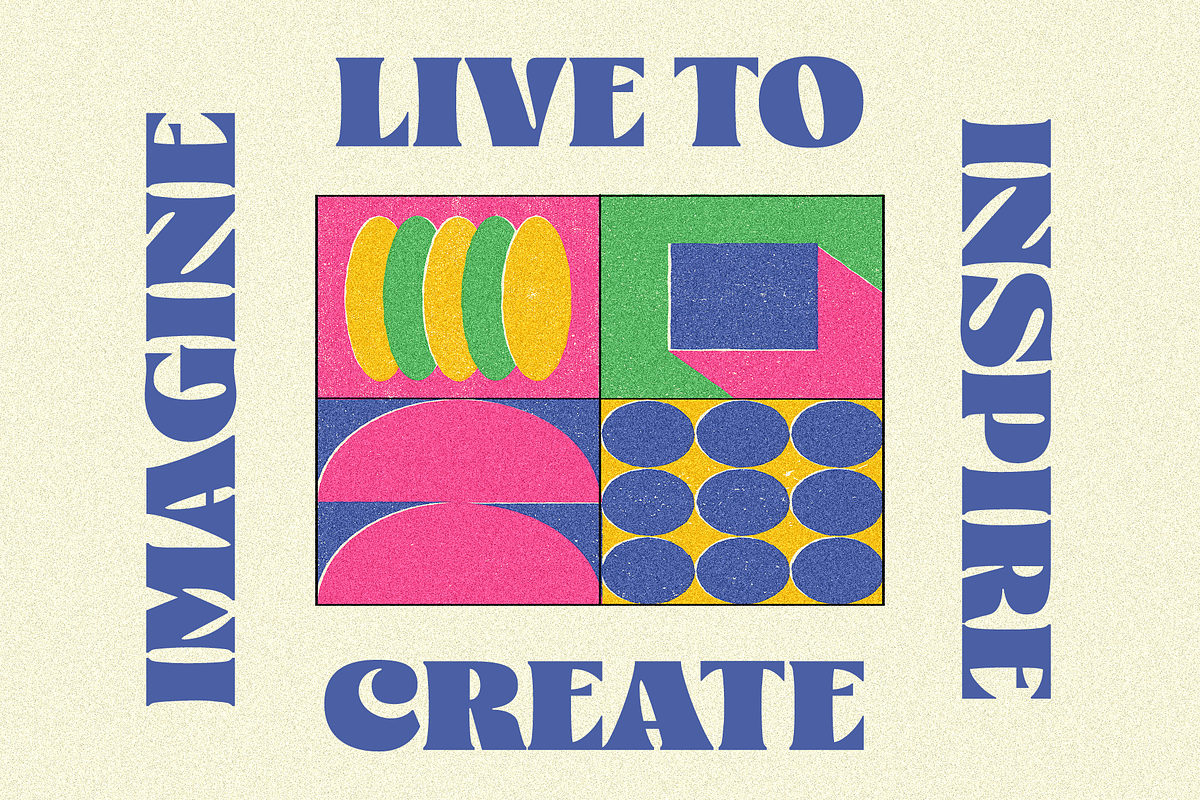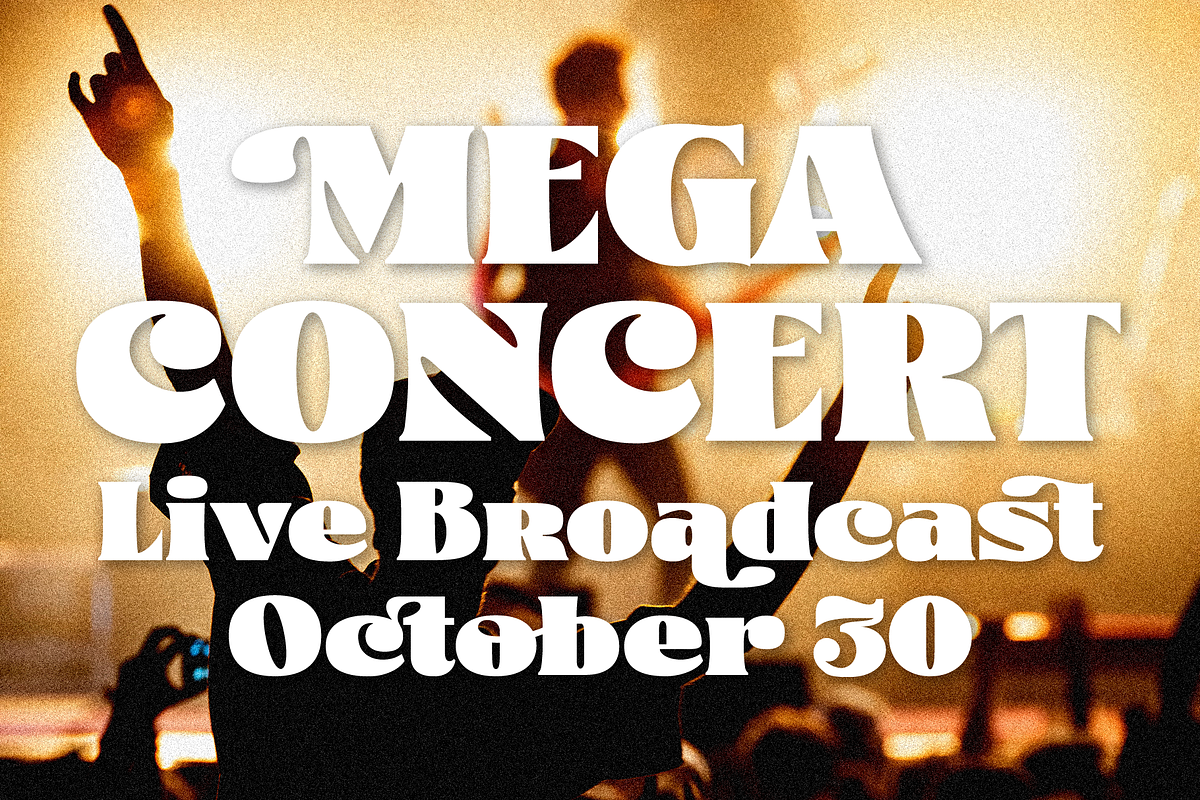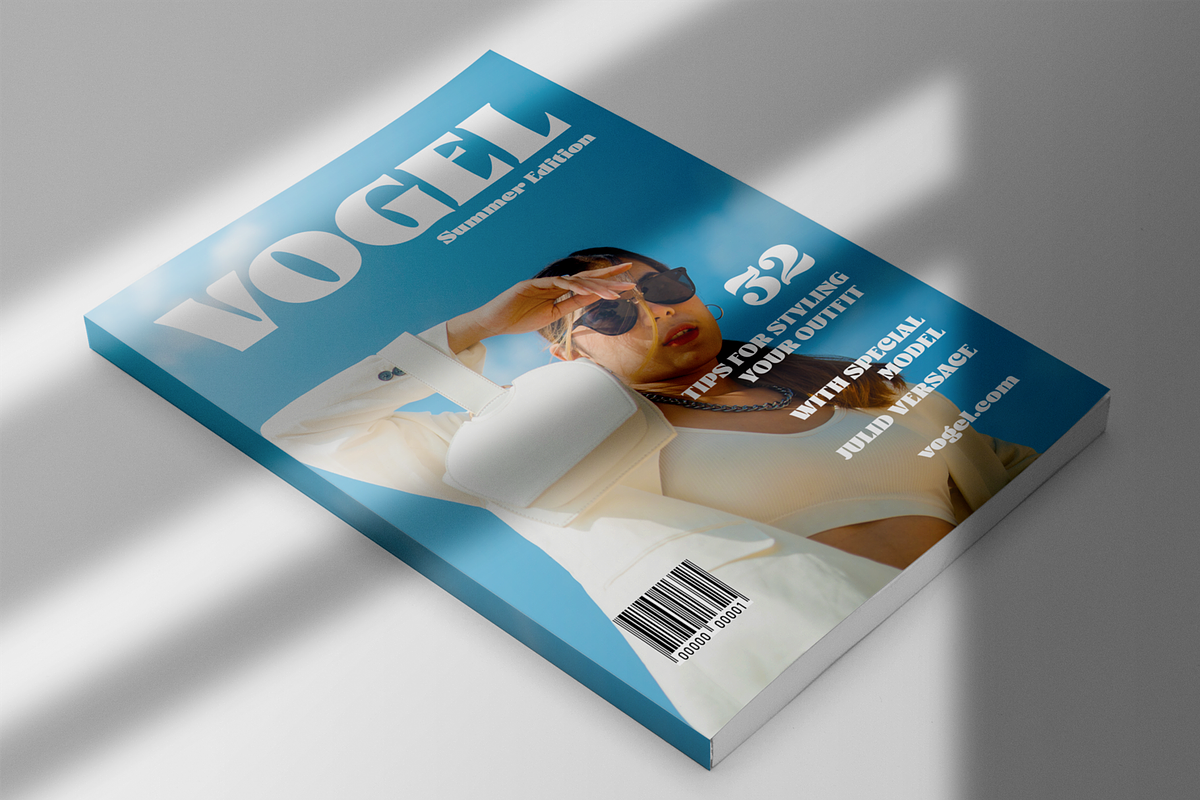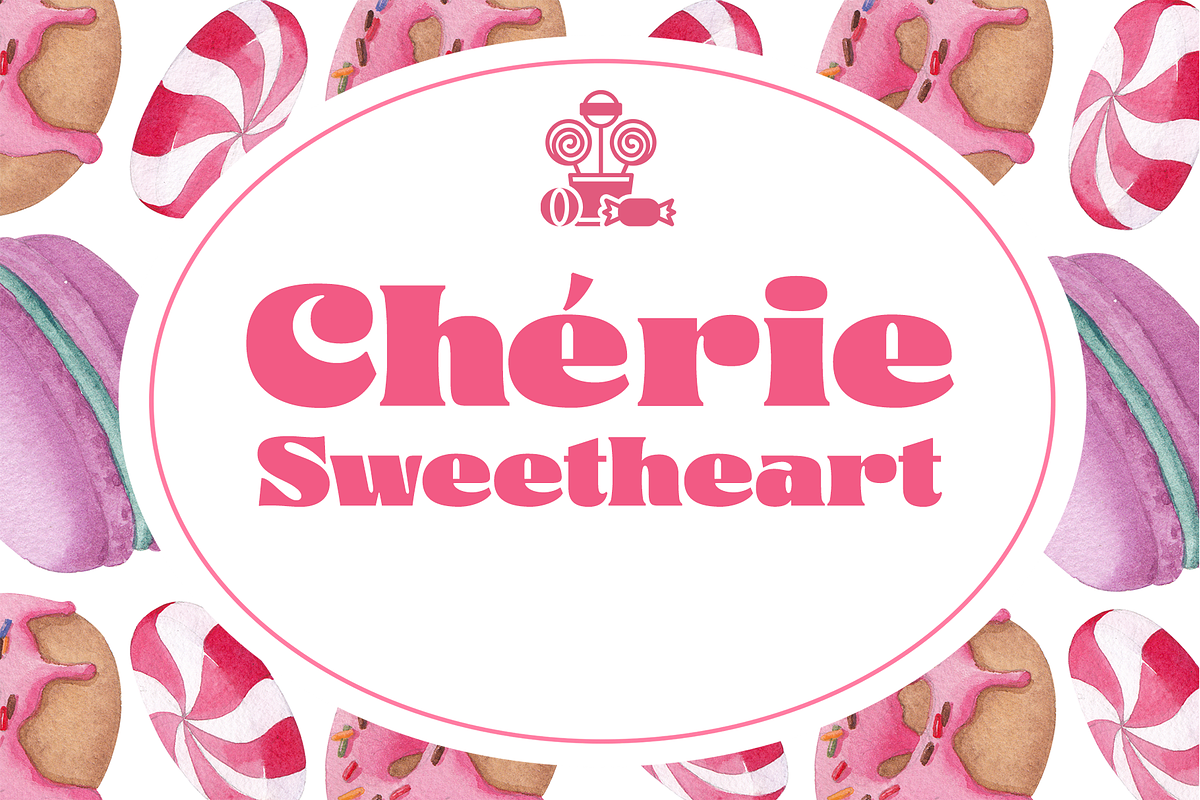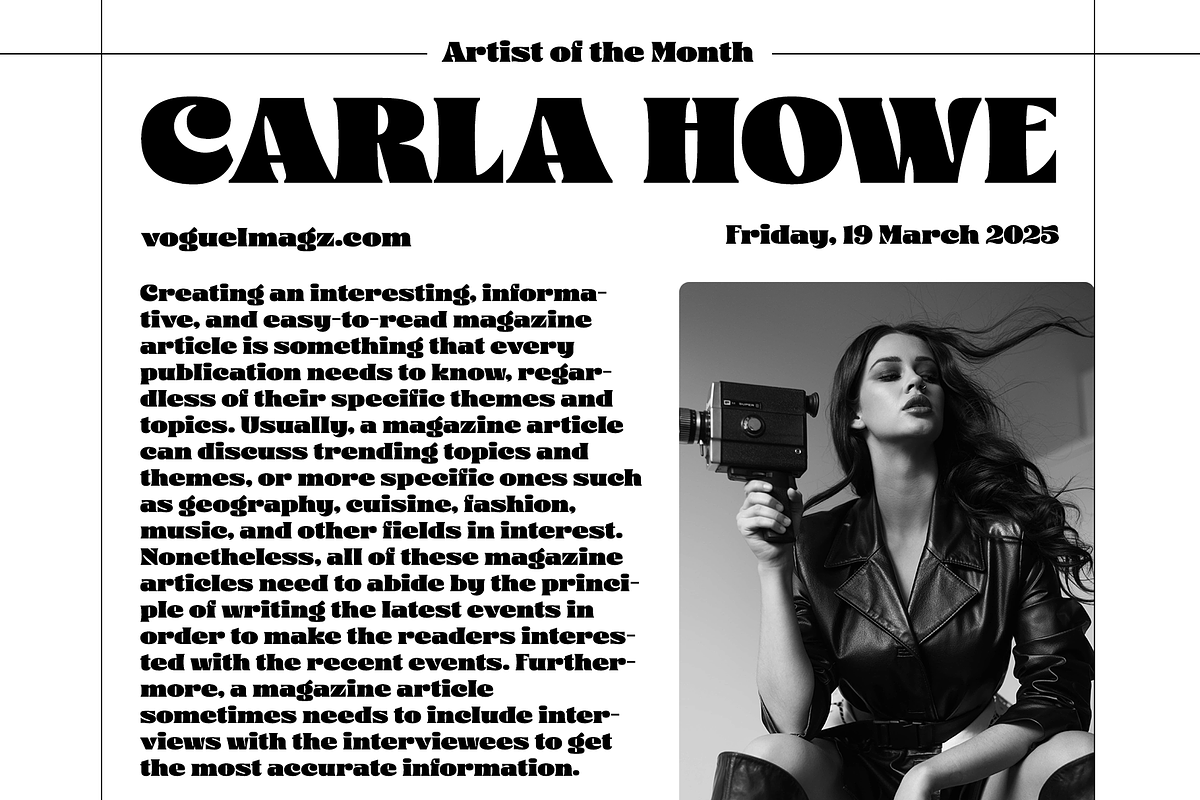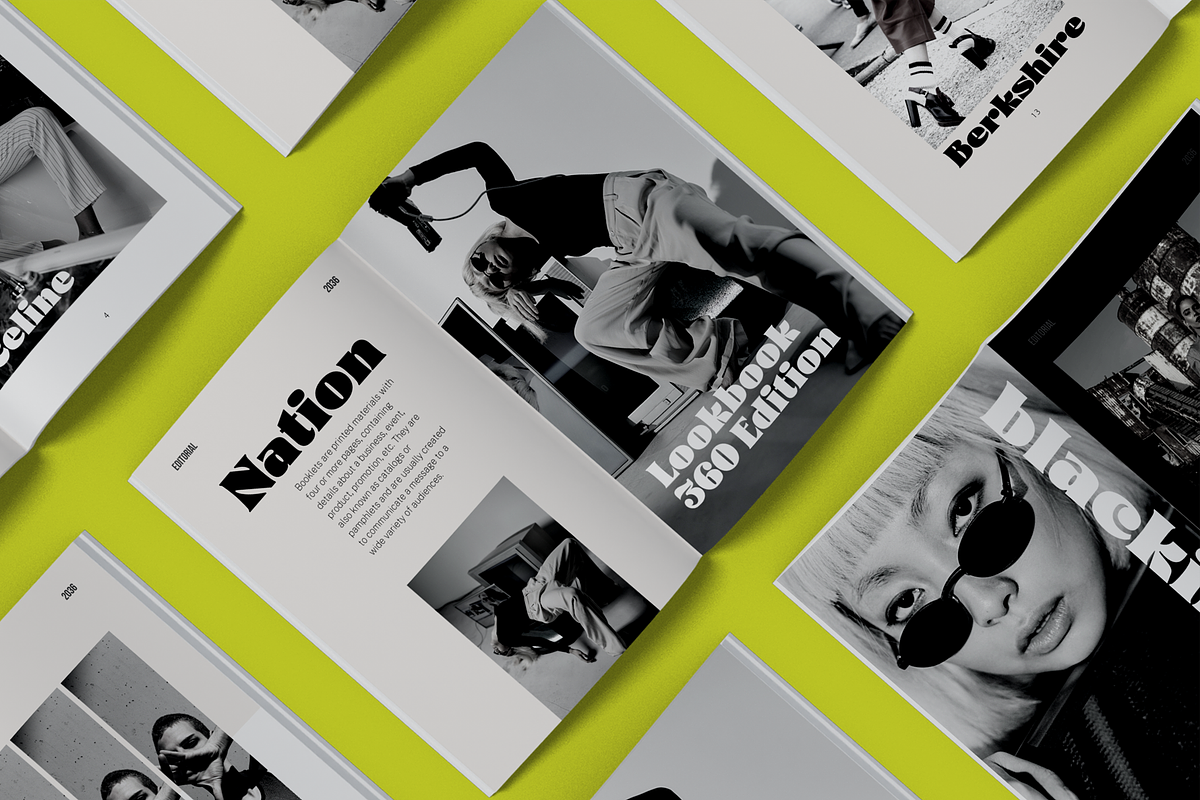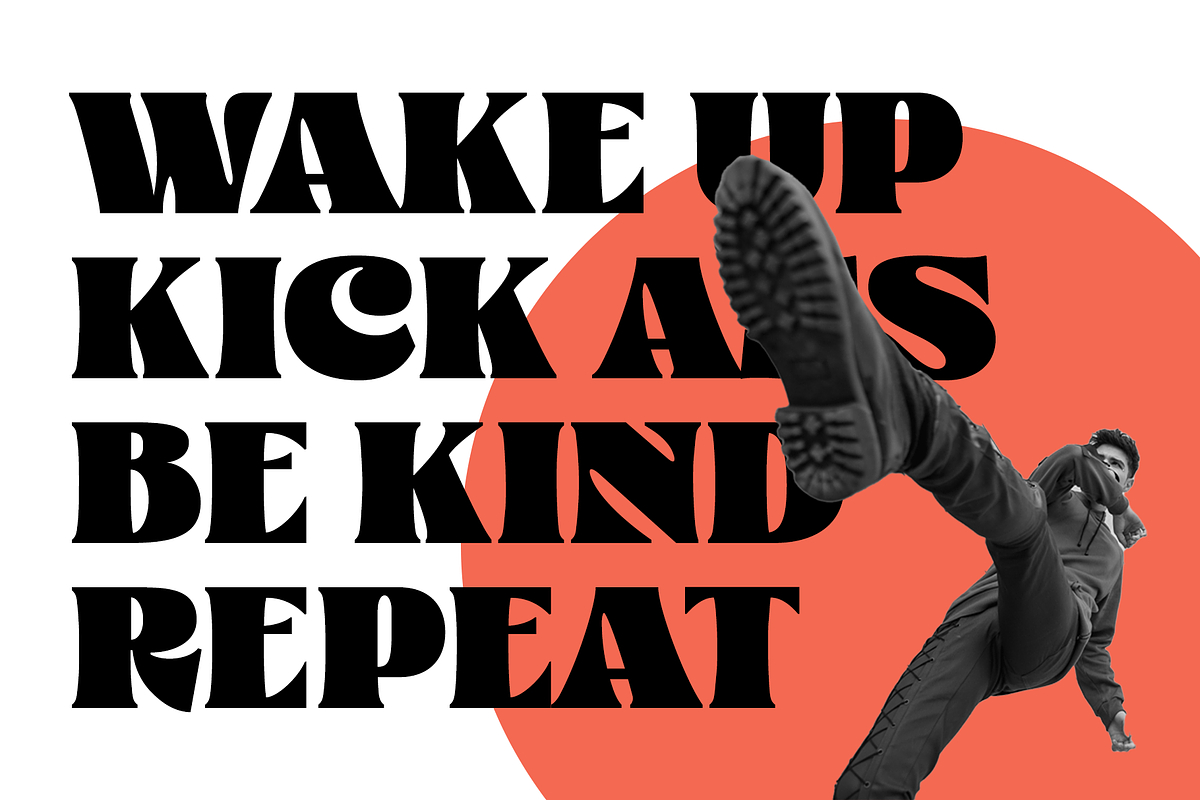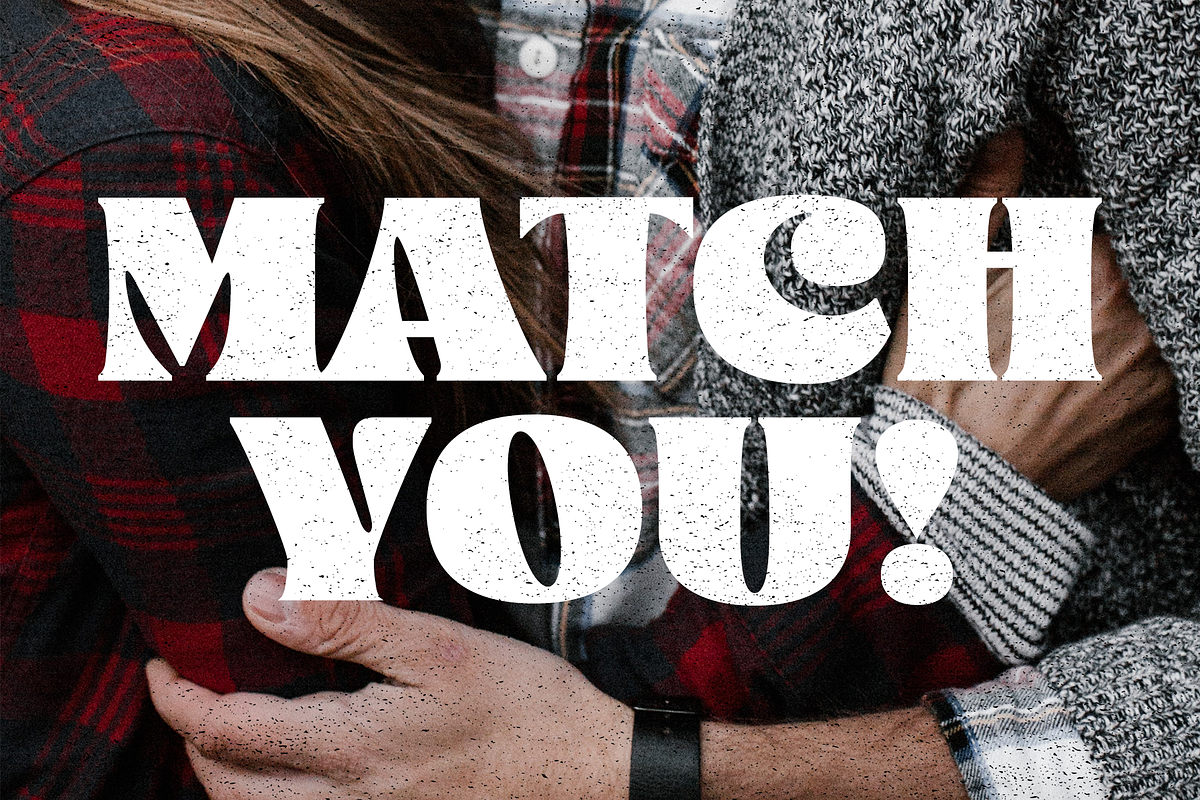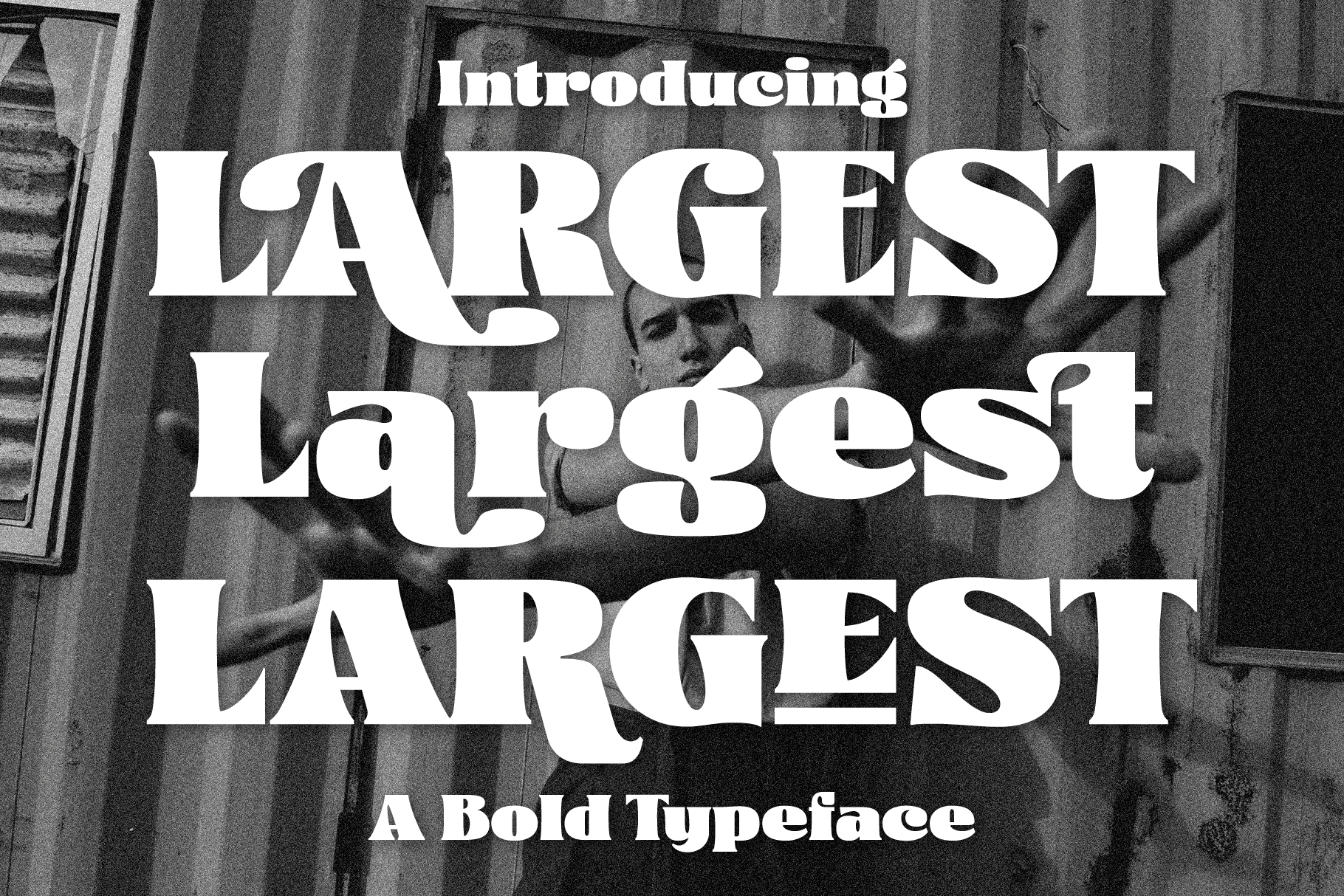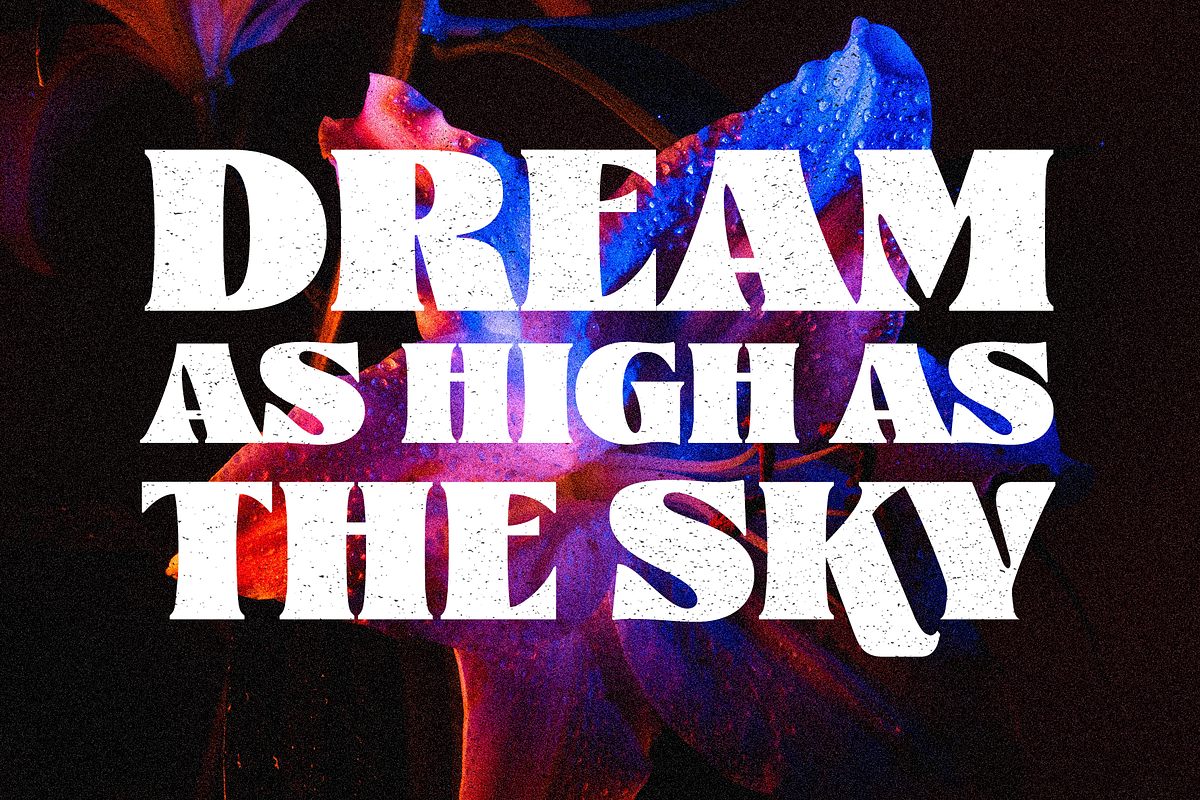
Largest Display Fonts
Are you looking to make your headlines more eye-catching? If so, then this Largest Display Typeface is perfect for you!
This typeface style stands out from the crowd, making it ideal for grabbing attention. Whether you're looking to make a statement on a poster, logo, card, website, social media or even just overlay text, this Largest Fonts is a great choice.
With its bold and heavy look, it will give your headlines the added pop they need.
You can easily customize the typeface with ligature and alternative characters. And if you're worried about legibility, don't be - the large typeface is designed to be easy to read from a distance. It's the perfect way to make your headlines stand out and show off your creativity. So don't be afraid to go big and make your headlines more attention-grabbing with our Largest Fonts!